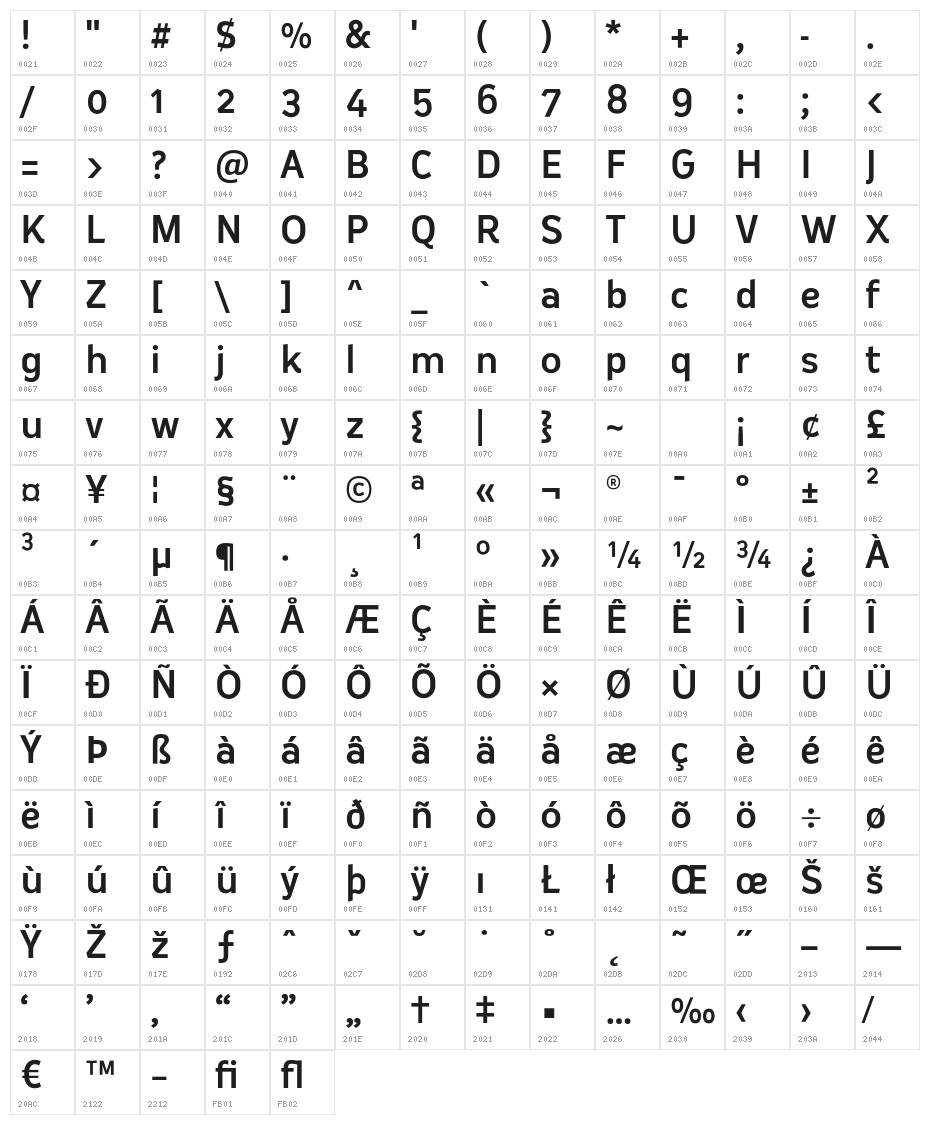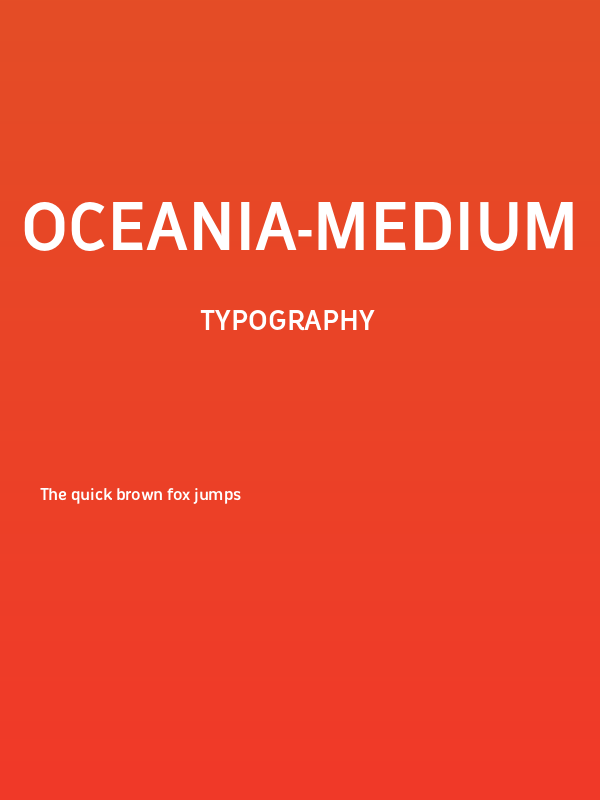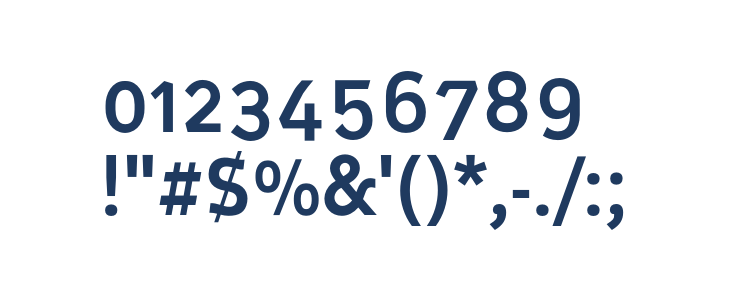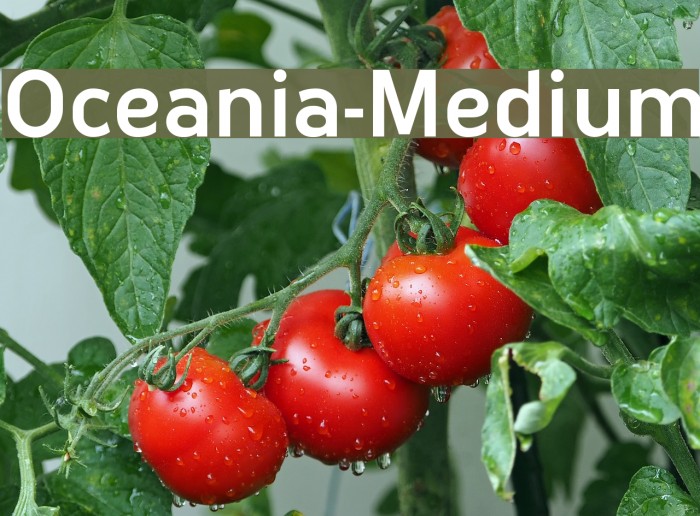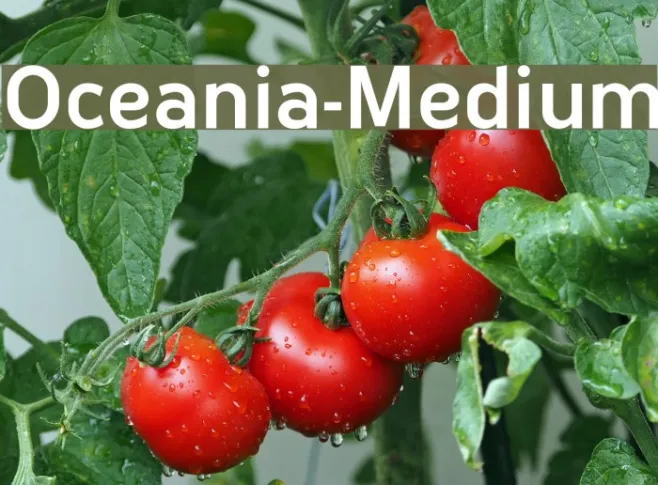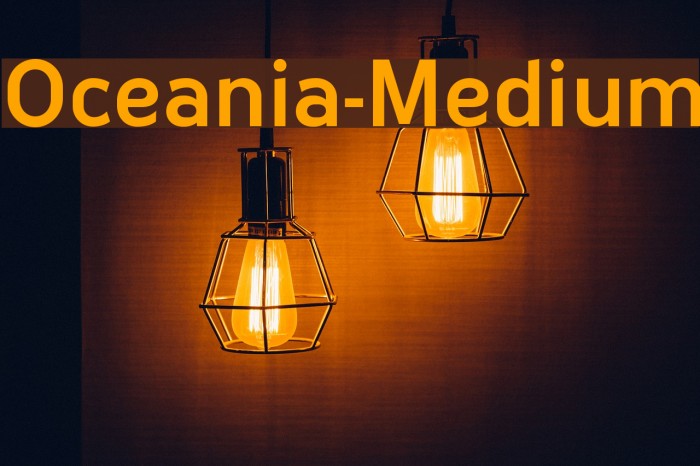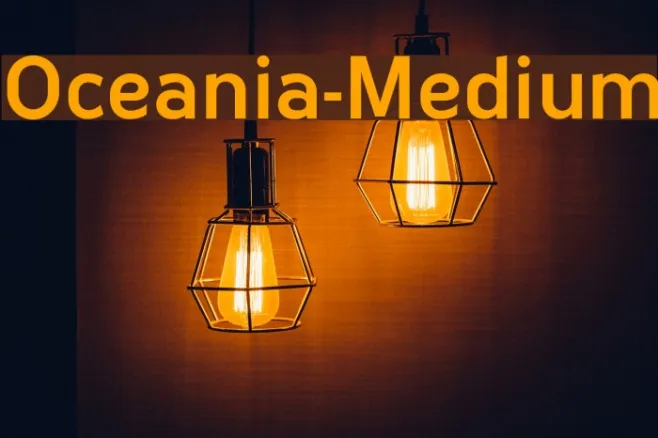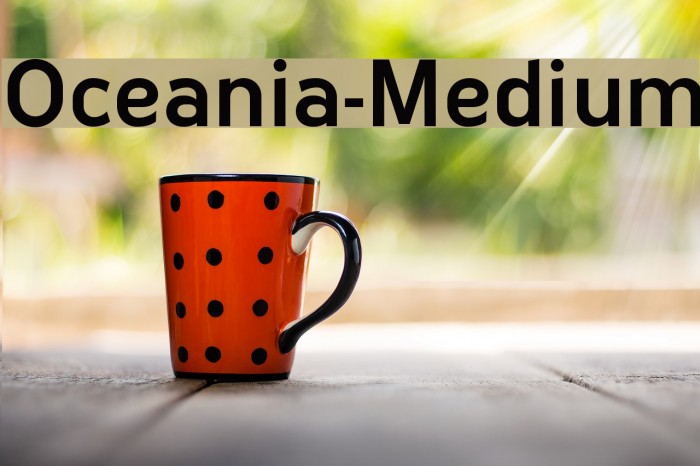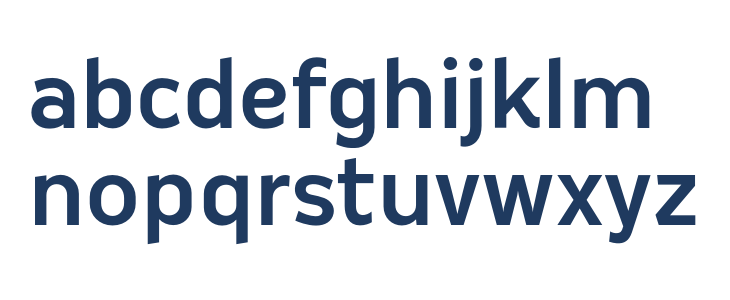
Oceania-Medium Font
Oceania-Medium Description
This font features a clean and modern sans-serif design, characterized by its geometric shapes and uniform stroke widths. The letters are well-proportioned, providing excellent readability across both uppercase and lowercase characters. The numerals are clear and distinct, making them suitable for various applications. Special characters are designed with the same attention to detail, ensuring consistency throughout the typeface. The overall appearance is sleek and professional, making it versatile for both digital and print media.